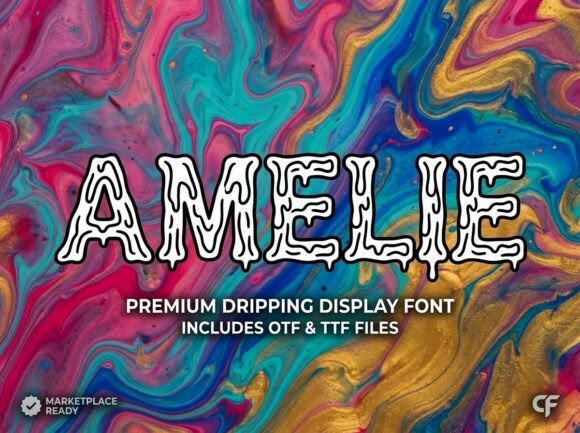
Unlocking the Power of Amelie Font: A Designer’s Dream Come True
I still remember the frustration of working on a project, hours spent searching for the perfect font, only to come up empty-handed. My client wanted something bold, eye-catching, and edgy for their streetwear brand, but everything I found seemed to scream “safe” or “boring.” That’s when I stumbled upon Amelie Font, a game-changing dripping display font that instantly captured the essence of urban style and avant-garde energy.
What Makes Amelie Font So Special?
Amelie Font is more than just a typeface; it’s an experience. This premium font boasts thick, bold letterforms with a unique “melting” aesthetic, complete with liquid-like droplets falling from every character. The internal “ripple” lines that follow the contours of the letters add a stylized, hand-drawn feel that’s hard to resist. Here are some of the features that make Amelie Font stand out:
- ✨ Unique melting aesthetic: A bold, high-impact look that’s perfect for making a statement
- ✅ Liquid-like droplets: Adding a sense of fluid energy and movement to your designs
- 🔥 Internal ripple lines: Giving the font a stylized, hand-drawn feel that’s both modern and edgy
- ✨ Versatility: Amelie Font is perfect for a wide range of design projects, from streetwear branding to music festival posters and social media headers
- ✅ Attention-grabbing: This font demands attention, making it ideal for headlines and titles that need to stand out
- 💥 Emotional connection: The melting aesthetic and ripple lines evoke a sense of energy and movement, adding an emotional layer to your designs
- 🤔 Legibility at small sizes: Amelie Font can be challenging to read at smaller sizes, so it’s best used for headlines and titles
- ⚠️ Overuse: While Amelie Font is stunning, using it excessively can lead to visual overload; use it sparingly for maximum impact
The Story Behind Amelie Font
Amelie Font was inspired by the urban landscapes of modern cities, where street art and graffiti reign supreme. The font’s creator, a young designer with a passion for avant-garde style, wanted to capture the energy and movement of city life in a typeface that would make a statement. With Amelie Font, they aimed to create a font that would not only turn heads but also evoke emotions.
| Font Name | Amelie Font |
| Author | greenvill |
Q: Is Amelie Font suitable for body text?
A: No, Amelie Font is best used for headlines and titles due to its bold, dripping aesthetic and potential legibility issues at smaller sizes.
Q: Is Amelie Font available in different weights or styles?
A: Currently, Amelie Font is available in a single weight, but its versatility and range of OpenType features make it suitable for a wide range of design applications.